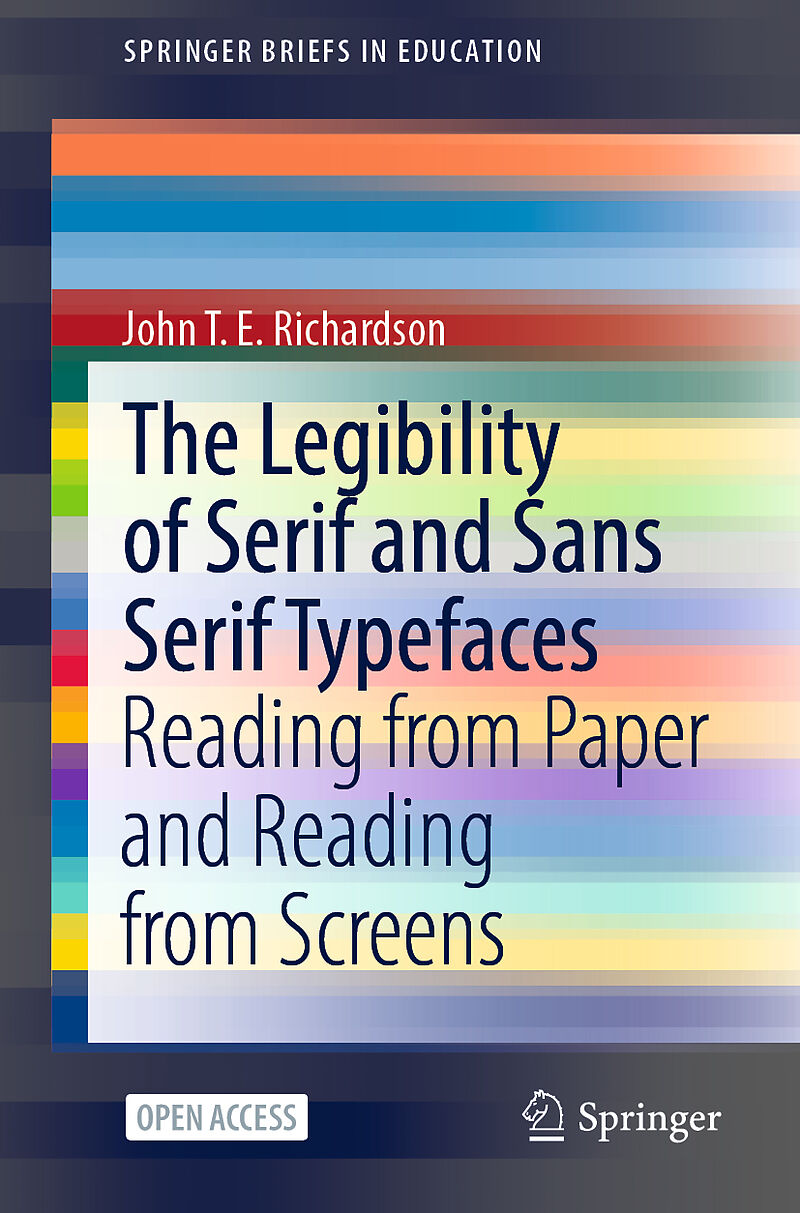
The Legibility of Serif and Sans Serif Typefaces
This open access book provides a detailed and up-to-date account of the relevant literature on the legibility of different kinds of typefaces, which goes back over 140 years in the case of reading from paper and more than 50 years in the case of reading from ...